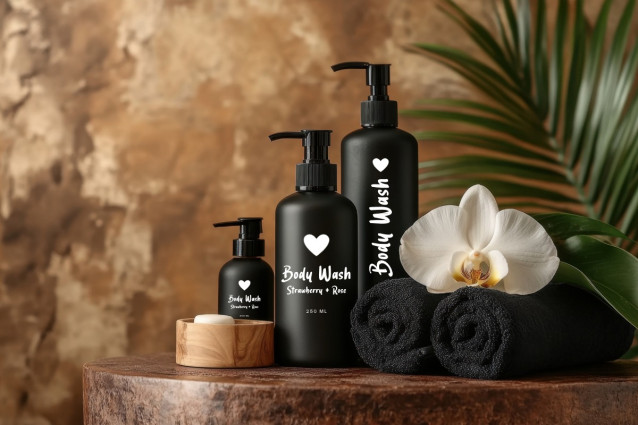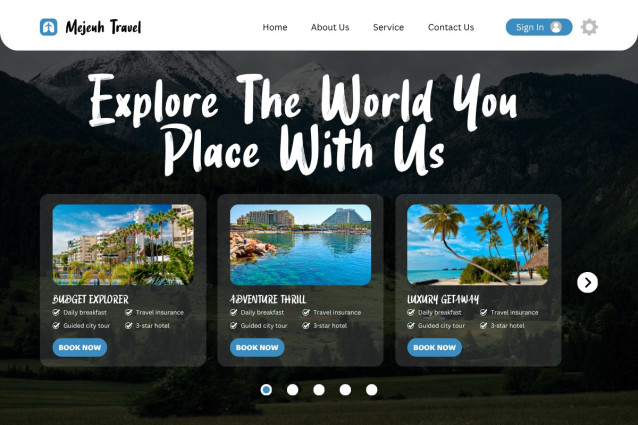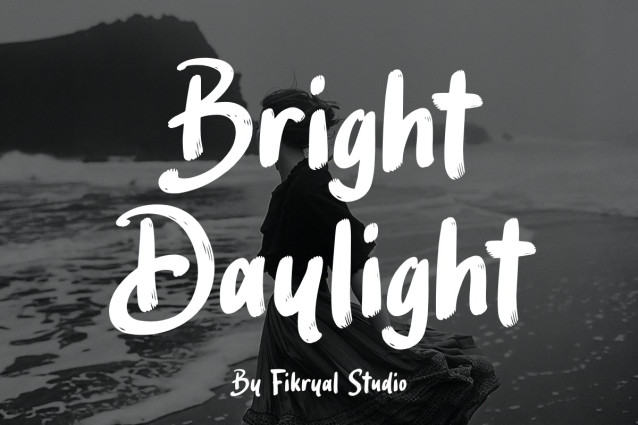
Bright Daylight Font is a handmade brush font that captures the energy of real brush strokes with a bold, expressive personality. Designed to bring authenticity and character to your projects, this font perfectly blends natural texture and modern style — making it ideal for logo design, branding, packaging, posters, and social media visuals.
Every letter was carefully crafted to give a handwritten, organic feel, adding life and motion to your text. Whether you’re working on a creative campaign, fashion branding, or artistic typography, Bright Daylight makes your work stand out with confidence and style.